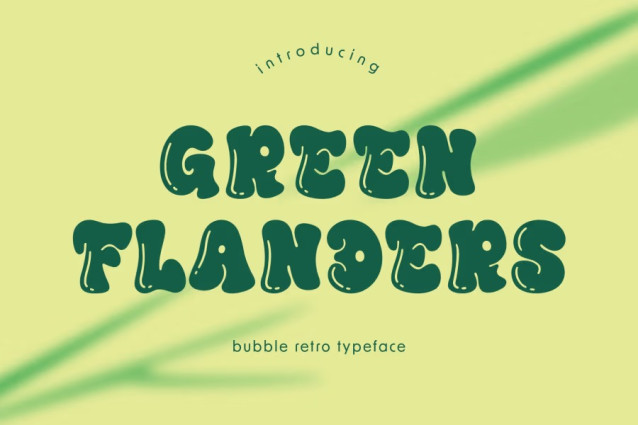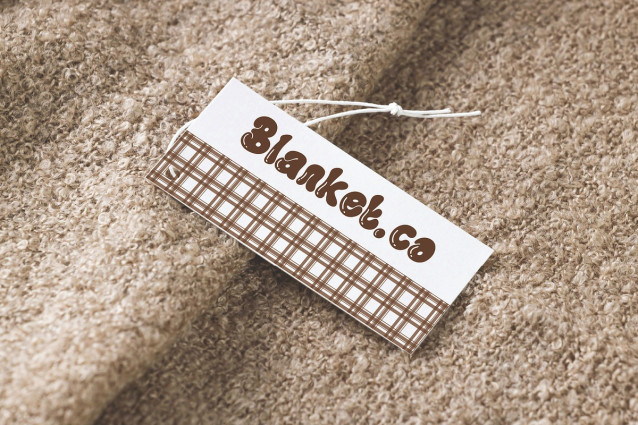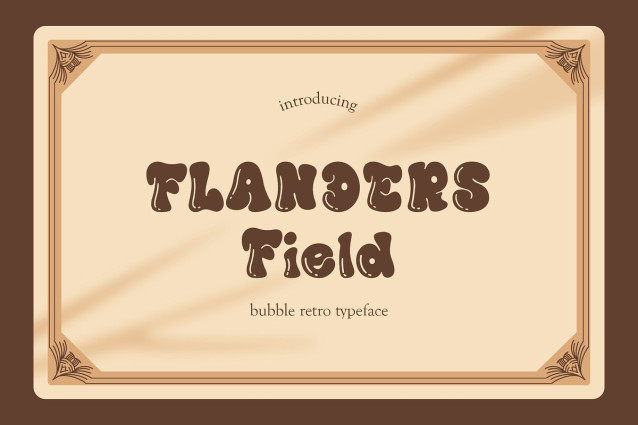
PGR Flanders Font
PGR Flanders Font a unique, groovy, and playful vibe to your designs! Handcrafted with love, Flanders is perfect for adding a touch of nostalgia and fun to your projects. Whether you’re designing greeting cards, children’s books, posters, or branding for kids, Flanders is the ideal choice to make your creations stand out.
Flanders offers a complete alphabet, numbers, and basic punctuation, ensuring you have everything you need to create eye-catching and cohesive designs. Its distinctive style is sure to capture attention and bring a smile to anyone who sees it.